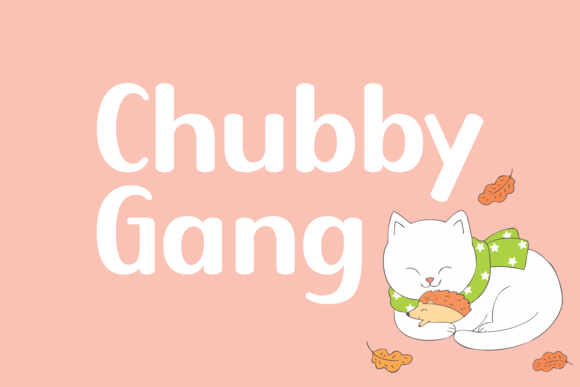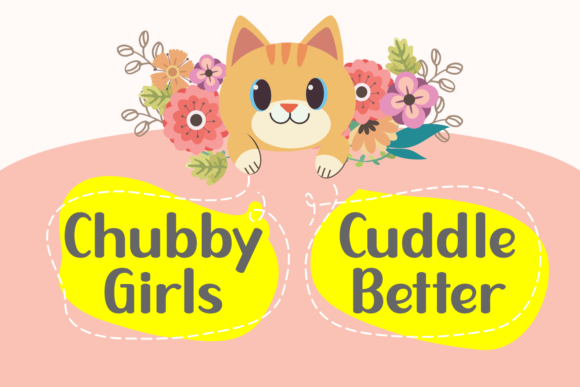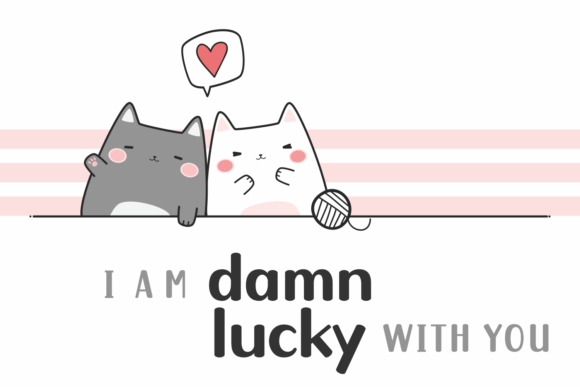
Bring Your Creative Ideas to Life with Chubby Gang Font
You know that moment when you’re brainstorming and everything just clicks into place? The ideas start flowing, and you can almost see your project taking shape. It’s exhilarating, right? But sometimes, all it takes is the right tool to elevate your concept from good to great. That’s where Chubby Gang Font comes in – a simple yet elegant display font that adds a touch of sophistication to your most creative ideas.
This versatile font is perfect for designers looking to add a unique twist to their work. With Chubby Gang Font, you can create stunning visuals that capture attention and leave a lasting impression. Its clean lines and subtle curves make it an ideal choice for a wide range of projects, from branding and advertising to digital art and design.
Key Features of Chubby Gang Font
- Font Style: The Chubby Gang Font is a playful, rounded sans-serif font, ideal for use in casual and creative projects.
- Character Set: The font includes a comprehensive set of characters, including uppercase and lowercase letters, numerals, punctuation marks, and special characters.
- Unique Characteristics: The font features a unique, hand-drawn style with subtle rounded edges, giving it a friendly and approachable feel.
Chubby Gang Font Review
I recently had the chance to play around with the Chubby Gang font, and I must say it’s a mixed bag. Here’s my honest take on what works and what doesn’t.
- Unique Personality: The Chubby Gang font has a distinct, quirky feel to it that’s perfect for adding some character to your designs.
- Variety of Styles: The font comes in multiple styles, from bold to italic, which gives you plenty of options to choose from.
- Customization: The font is highly customizable, making it easy to adjust the spacing, weight, and other settings to fit your needs.
- Limited Readability: The font’s unique style can make it difficult to read, especially at smaller sizes.
- Not Ideal for Body Text: While the Chubby Gang font is great for headlines, it’s not the best choice for body text due to its quirky style.
- Not Suitable for Small Screens: The font’s bold lines and thick strokes can make it hard to read on small screens or devices.
Overall, I’d say the Chubby Gang font is perfect for designers who want to add some personality to their designs, but it’s not a go-to choice for everyday use. With some careful planning and selection, it can be a great addition to your design toolkit.
For best results, use the Chubby Gang Font in conjunction with bold or italic text to add emphasis.
Use the font in headings and subheadings to create a clear hierarchy of information.
The Chubby Gang Font is well-suited for use in graphic design, branding, and digital art projects.
It can also be used in print design, such as brochures, flyers, and business cards.
Use the font to add a playful, whimsical touch to your designs.